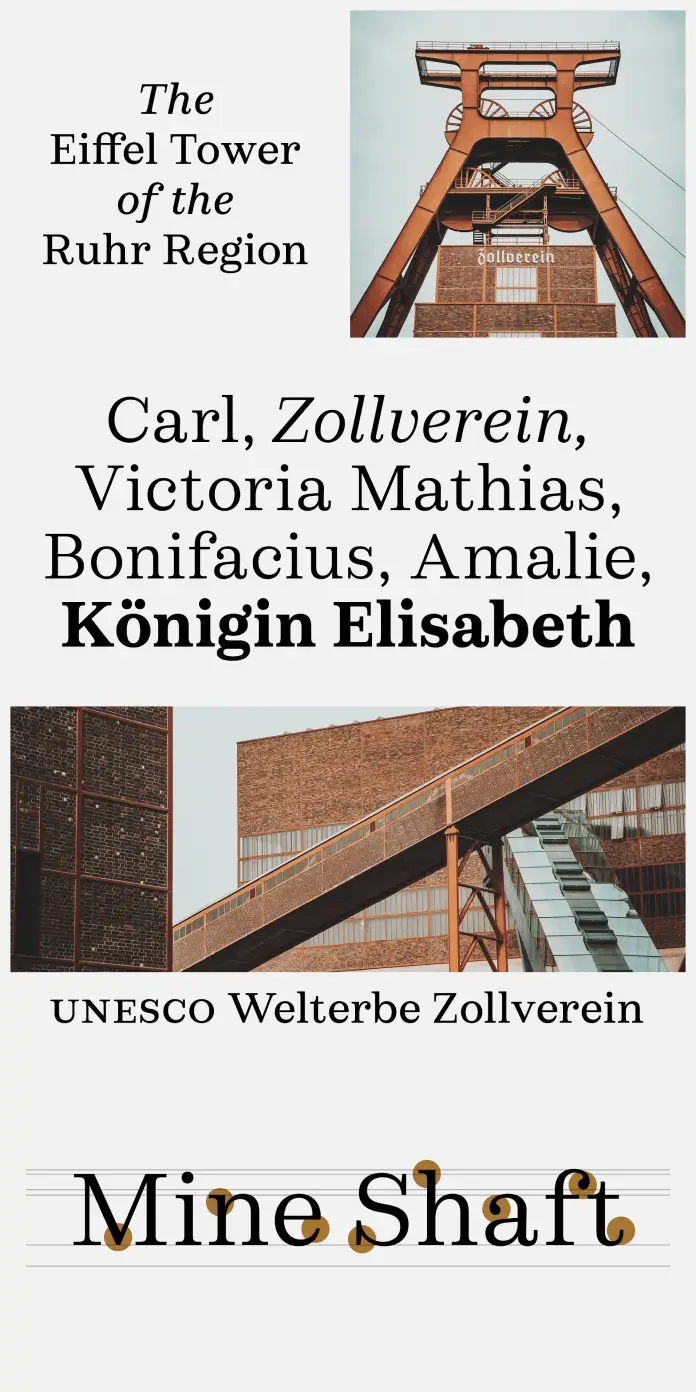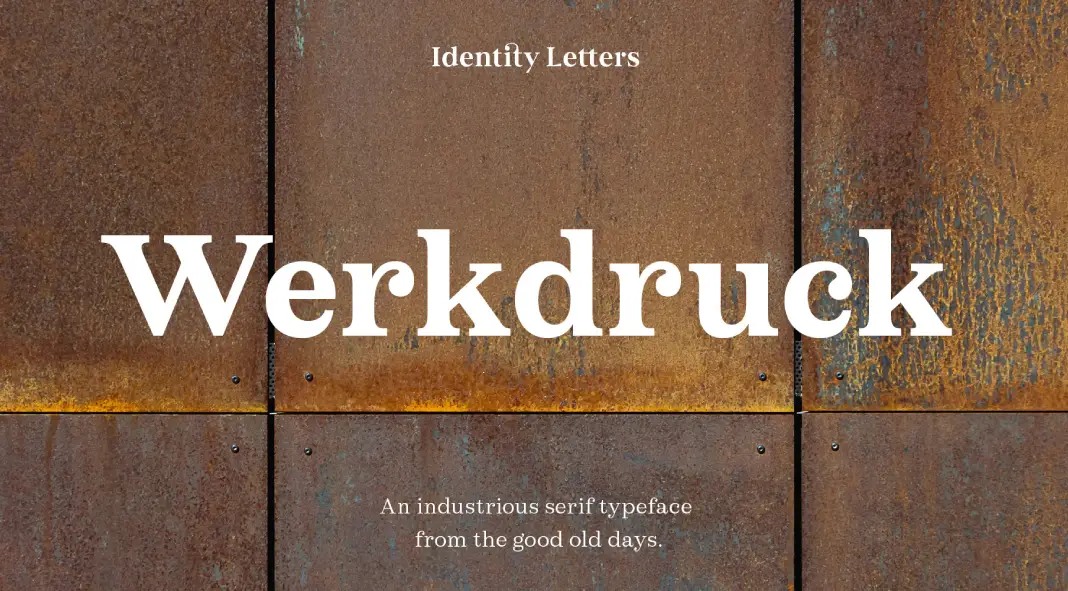
Meet Werkdruck: A Robust Serif That’s Ready to Work
Do you want a typeface that was built to last? That’s Werkdruck. Created by Moritz Kleinsorge, director and principal type designer at Identity Letters, it’s a serif with a real work ethic. Think of it like a trusty tool, always reliable and ready for any design challenge.
Old-School Inspiration, Modern Execution
Werkdruck takes cues from Baroque and Neoclassical type designs. These are the fonts that were made in a time when things were built to last, with a focus on quality and craftsmanship. It’s not a simple copy though. Kleinsorge brings this tradition into the digital age. He optimizes Werkdruck for contemporary print and digital uses. The result? A typeface that’s both sturdy and refined.
Think about what makes a font easy to read. Werkdruck’s robust design helps text flow smoothly. Its curves, perfected for digital displays, look great in large sizes too. It’s a win-win.
More Than Just a Pretty Face
Werkdruck has a deliberate, drawn feel, not written. It shares similarities with Didone fonts, with their vertical stress and symmetrical build. However, its moderate stroke contrast and geometric serifs set it apart. This is where it veers from the overly stylized nature of some fonts. It’s like the old saying: “Less spice, more meat.” It’s practical and honest.
But don’t think it’s too mechanical. Werkdruck has little details, like its organic teardrops. They deviate from a purely geometric ideal and give life to the type. It has a hint of the early 20th-century “Scotch Modern” style, designed to be space-efficient for printing. Werkdruck takes those basic ideas and expands on them, making it perfect for modern digital needs. Each letterform feels confident and works well for branding. It stays readable, even at small sizes on high-resolution displays.
A Full Toolkit for Typography
Werkdruck is more than just a few letters. With 911 glyphs and nine weights, it has a full range of options. Each weight comes with a beautiful true italic too. Whether you’re working on print, apps, or websites, Werkdruck has you covered. It supports more than 200 languages and includes various number formats. Small caps, stylistic sets for alternative designs, and circled or framed characters also come standard. It’s like having a full workbench of tools at your fingertips.
The Perfect Pairing
Werkdruck isn’t meant to work alone. It pairs perfectly with Werksatz, Identity Letters’ popular sans-serif typeface. Both fonts have their unique personalities. They also share the same historical roots, a similar robust approach, and proportions. This makes them a perfect match.
Consider how these typefaces could enhance your projects. Are you designing a brand? Working on a book? Maybe you need fonts for UI/UX design? From a museum website to a huge encyclopedia, Werkdruck and Werksatz are ready for anything. Together they can help you achieve sophisticated and unique results.